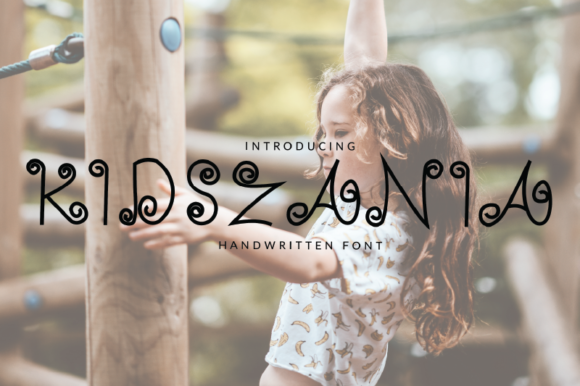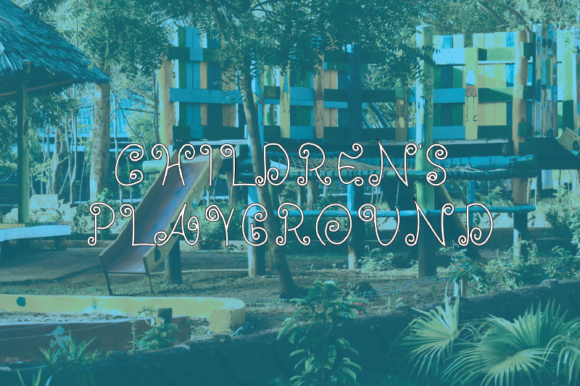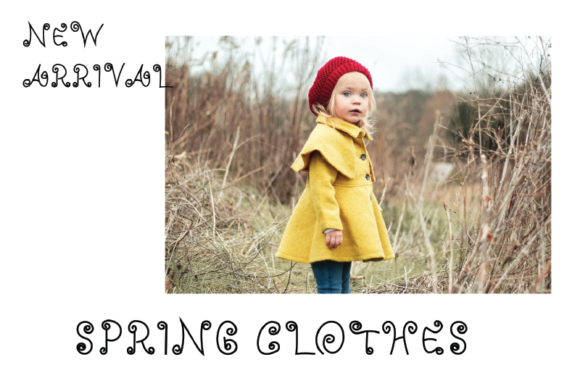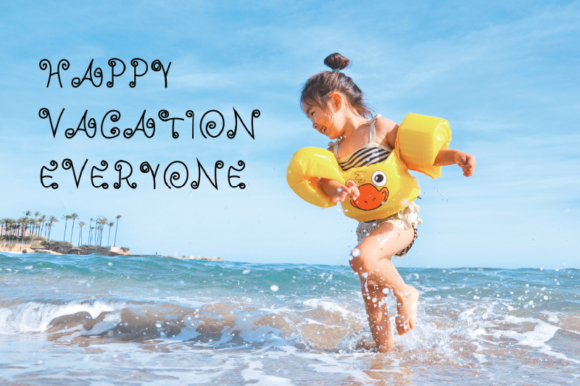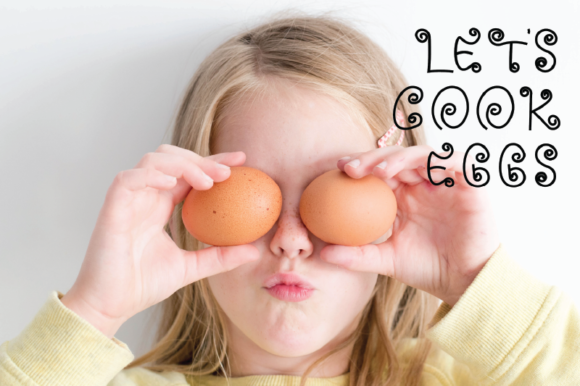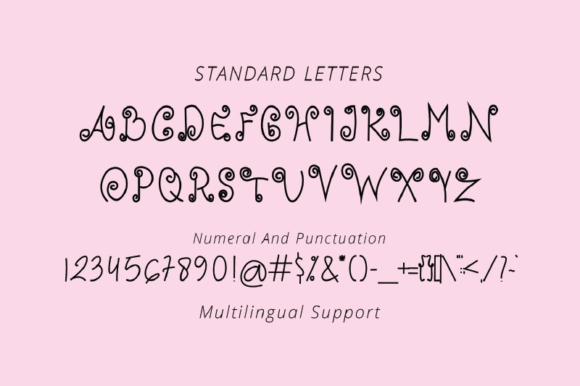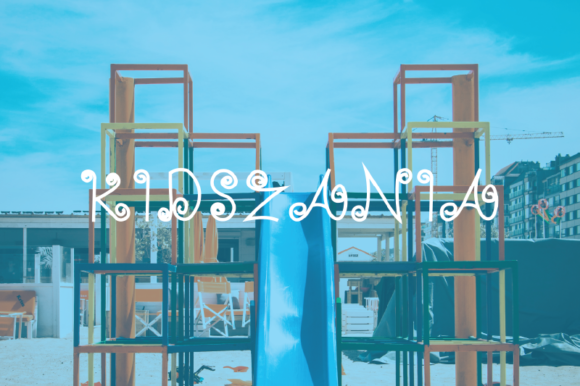
Kidszania Font
About Kidszania Font
Kidszania is a fun handwritten featuring a gorgeous range of playful letters. Use it to turn any creative idea into a true standout!